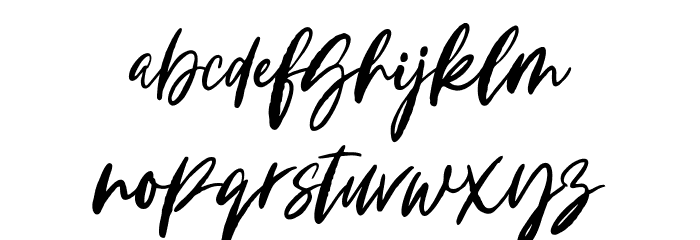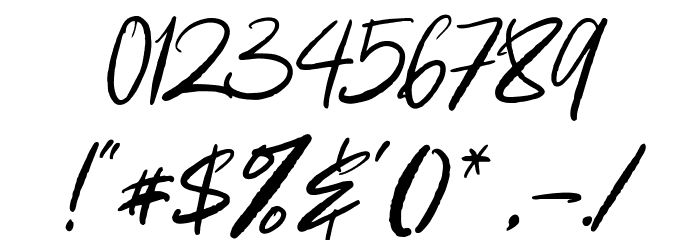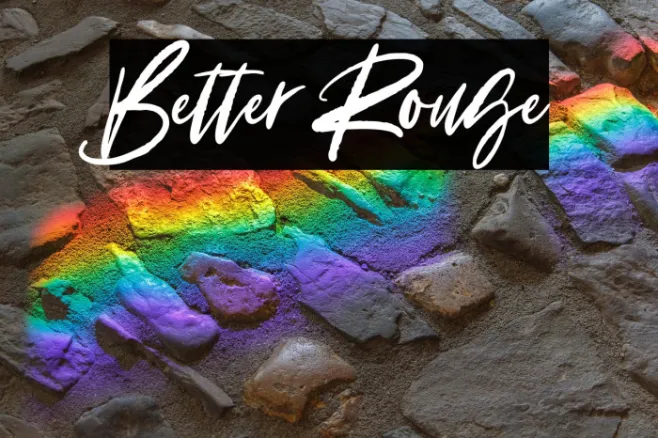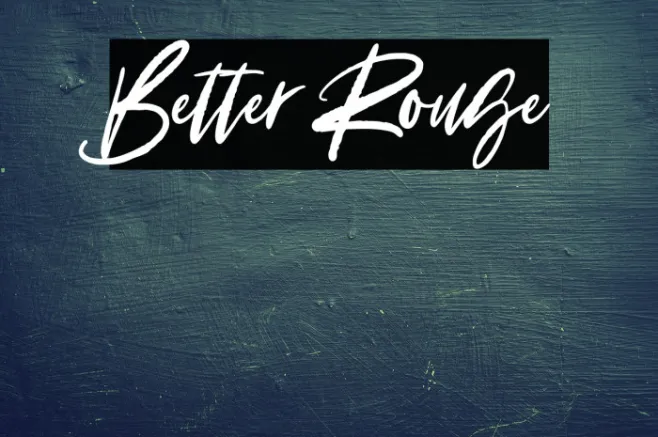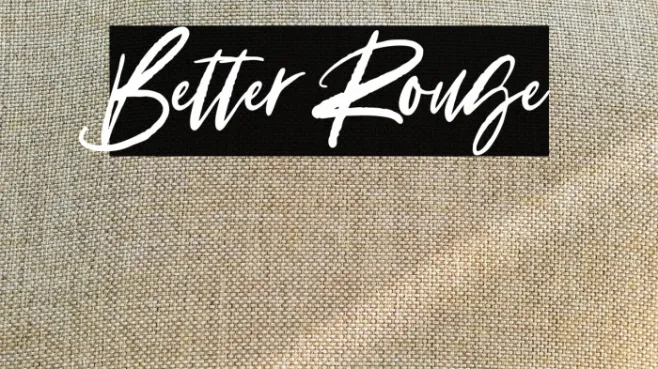
Better Rouge Font
This font features a dynamic and energetic script style, characterized by fluid, sweeping strokes that convey a sense of movement and elegance. The letters are connected in a cursive manner, with varying stroke widths that add a lively and personal touch. The uppercase letters are bold and prominent, while the lowercase letters maintain a consistent flow, enhancing readability. The numerals and special characters are crafted with the same attention to detail, ensuring a cohesive look across all text elements. This font's handwritten appearance makes it ideal for projects that require a personal or artistic flair.
A dynamic and energetic script font with fluid, sweeping strokes and a personal touch.
- Font: Better Rouge
- Proposed Projects: Ideal for wedding invitations, greeting cards, branding, and artistic projects that require a personal touch.
- Category: Script
- Use Case: Logos, Headlines, Artistic projects